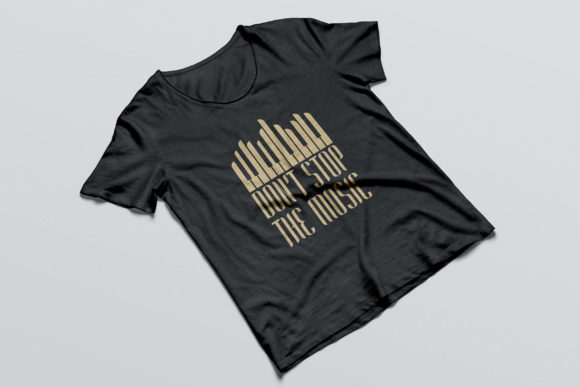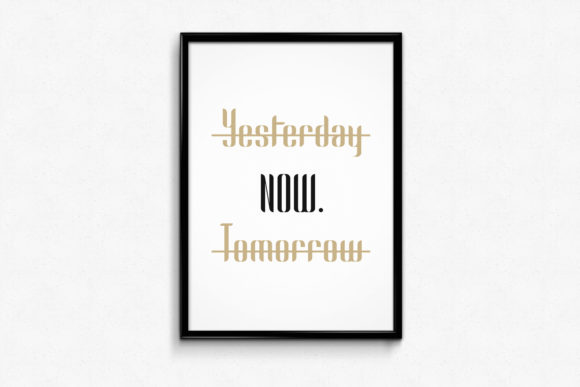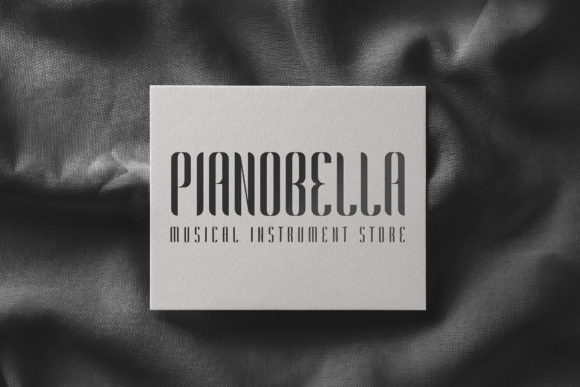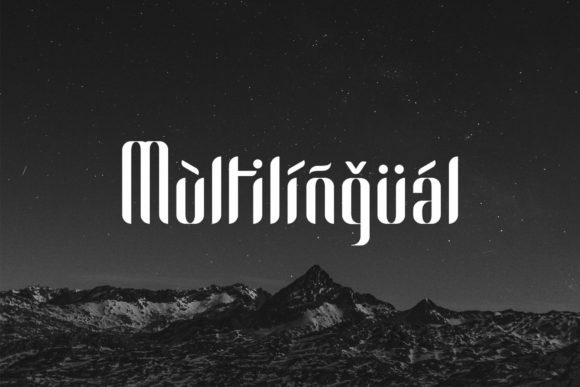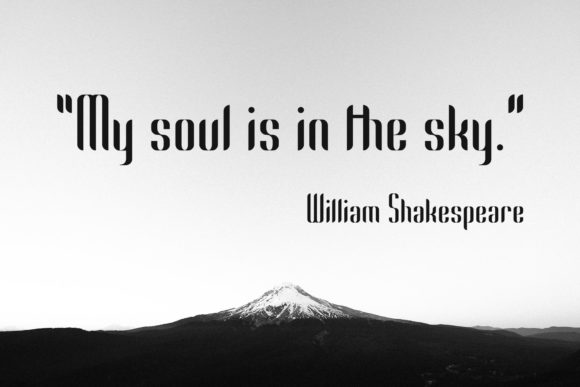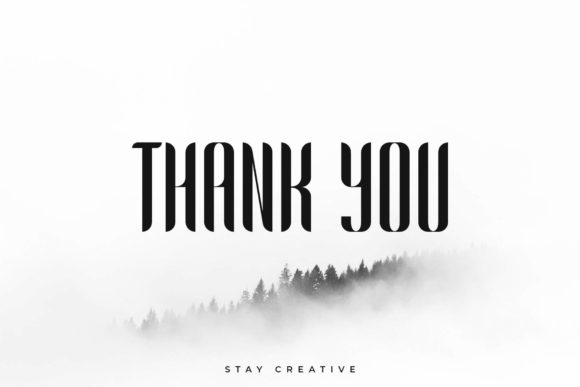
Discover the Unique Charm of Harmonial Font: A Cool and Bold Sans Serif
Are you tired of using the same old fonts in your designs? Look no further than Harmonial Font, a cool and bold sans serif font that is sure to add a unique touch to your projects. With its distinctive style and charm, Harmonial is the perfect choice for designers and crafters looking to make a statement.
What is Harmonial Font?
Harmonial Font is a sans serif font that boasts a bold and modern look. Its clean lines and geometric shapes give it a sleek and contemporary feel that is perfect for a wide range of design applications. Whether you’re working on a logo, brochure, or website, Harmonial is sure to grab attention and make your design stand out.
The Unique Style of Harmonial
So, what sets Harmonial apart from other fonts? The answer lies in its unique style, which combines bold lines with a touch of elegance. The font’s geometric shapes give it a modern feel, while its subtle curves add a touch of sophistication. The result is a font that is both cool and bold, yet refined and elegant.
Why Designers and Crafters Love Harmonial
Designers and crafters are always on the lookout for fonts that can help them create unique and eye-catching designs. Harmonial Font is a favorite among creatives for several reasons:
- Versatility: Harmonial is a versatile font that can be used in a wide range of design applications, from logos and brochures to websites and social media graphics.
- Legibility: The font’s clean lines and bold style make it easy to read, even at small sizes.
- Uniqueness: Harmonial’s distinctive style sets it apart from other fonts, making it the perfect choice for designers who want to create something truly original.
How to Use Harmonial Font in Your Designs
- Use it as a headline font: Harmonial’s bold style makes it perfect for headlines and titles.
- Pair it with a serif font: For body text, pair Harmonial with a serif font to create a striking contrast.
- Experiment with colors: Harmonial looks great in bold colors, so don’t be afraid to get creative with your color palette.
Get Inspired by Harmonial’s Unique Style
Harmonial Font is more than just a font – it’s a design inspiration. Its unique style and charm are sure to spark your creativity and inspire you to create something truly amazing. Whether you’re a seasoned designer or a crafty DIY enthusiast, Harmonial is the perfect choice for anyone looking to add a touch of elegance and sophistication to their designs.
In conclusion, Harmonial Font is a cool and bold sans serif font that is sure to add a unique touch to your designs. With its distinctive style and charm, it’s the perfect choice for designers and crafters looking to make a statement. So why settle for the same old fonts when you can try something new and exciting? Give Harmonial Font a try today and discover the power of unique typography!